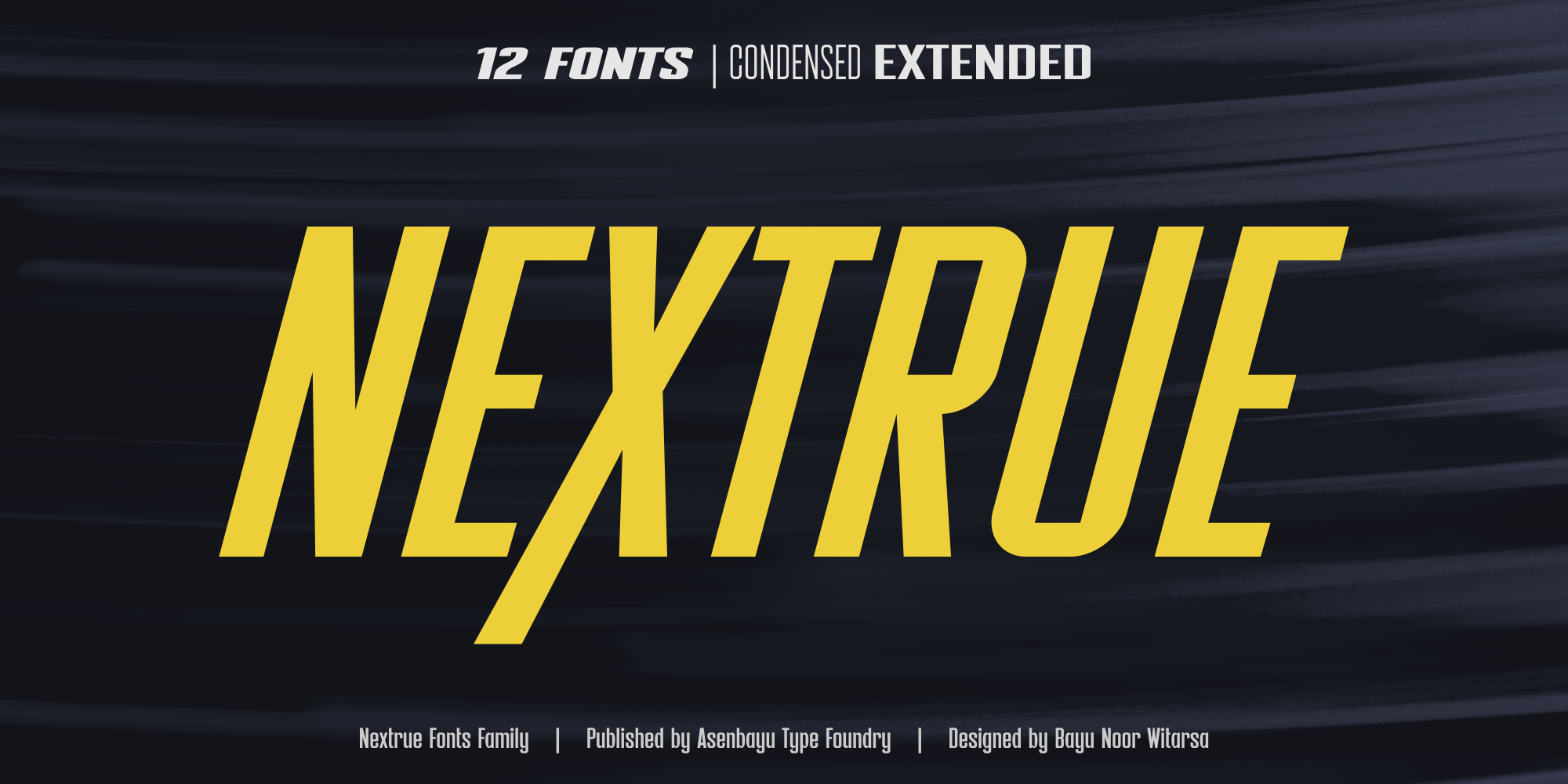
Nextrue Font is perfect for technology startup branding, digital innovation campaigns, future-focused corporate identities, artificial intelligence companies, blockchain project materials, modern software interfaces, progressive web design, cutting-edge product launches, next-generation marketing materials, and forward-thinking business presentations that require advanced typography with futuristic appeal and technological sophistication.
What makes Nextrue Font so exciting is its visionary fusion of contemporary design principles with next-generation aesthetics that perfectly captures the spirit of technological advancement and digital transformation. This font features sleek, precisely engineered letterforms with subtle futuristic elements that convey innovation and progress without sacrificing readability or professionalism. The forward-thinking character design embodies the essence of tomorrow's digital landscape while remaining highly functional for today's communication needs.
The Nextrue Font family includes multiple weights and styles: Thin, Light, Regular, Medium, Bold, Black, and their corresponding Italic variants. Each weight maintains the signature next-generation character while offering comprehensive flexibility for innovative design applications and progressive typographic hierarchies.
Innovation-focused designers consistently choose Nextrue Font Free Download for projects requiring cutting-edge typography that embodies technological advancement and future-ready thinking. Whether you're developing tech startup brand identities, creating digital transformation materials, designing innovative product interfaces, or crafting forward-thinking marketing campaigns, this font delivers exceptional modernity and technological credibility. The font's comprehensive character set includes technical symbols and supports multiple languages while ensuring optimal performance across all digital platforms and emerging technologies, making it an essential tool for designers working on innovative projects that demand next-generation, technologically advanced, and future-focused typography solutions with progressive sophistication and digital-first functionality.